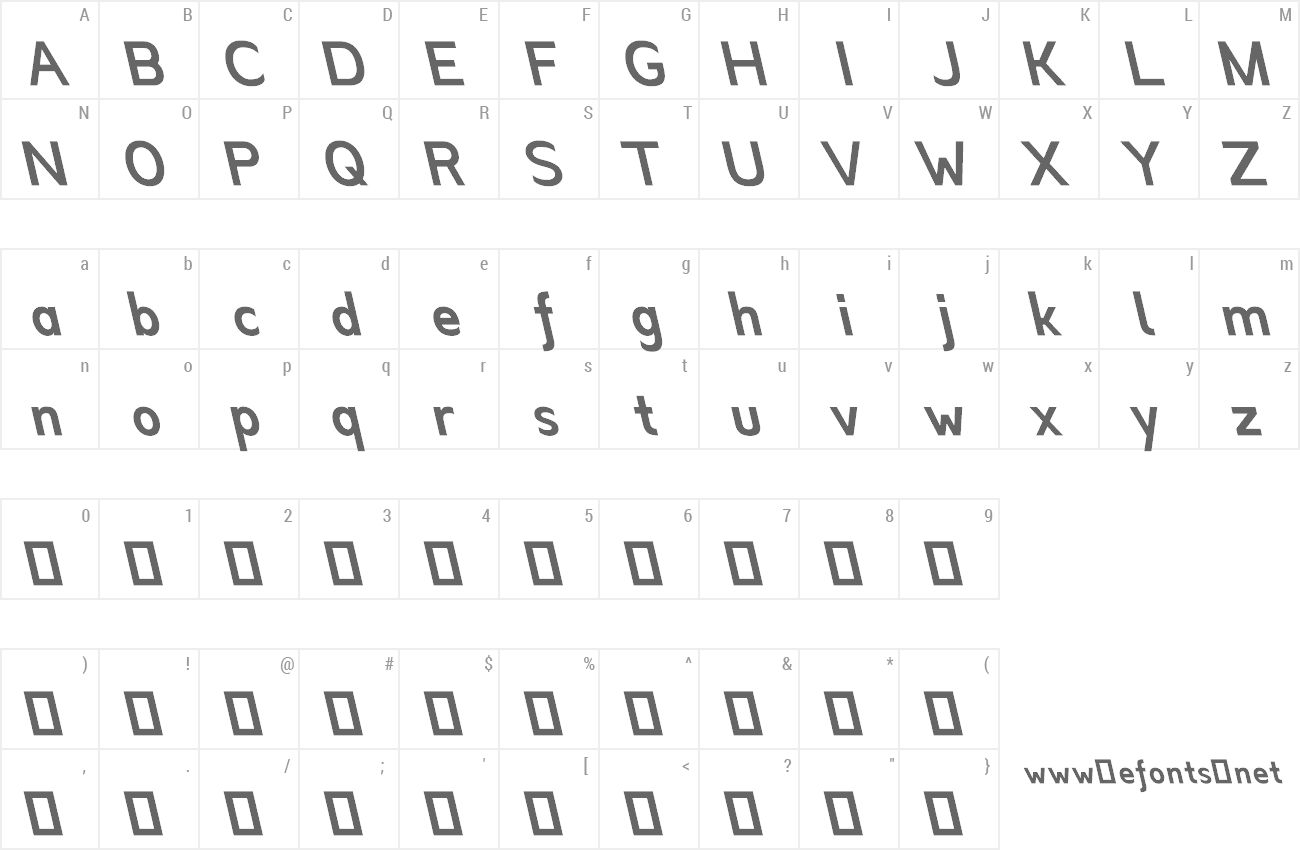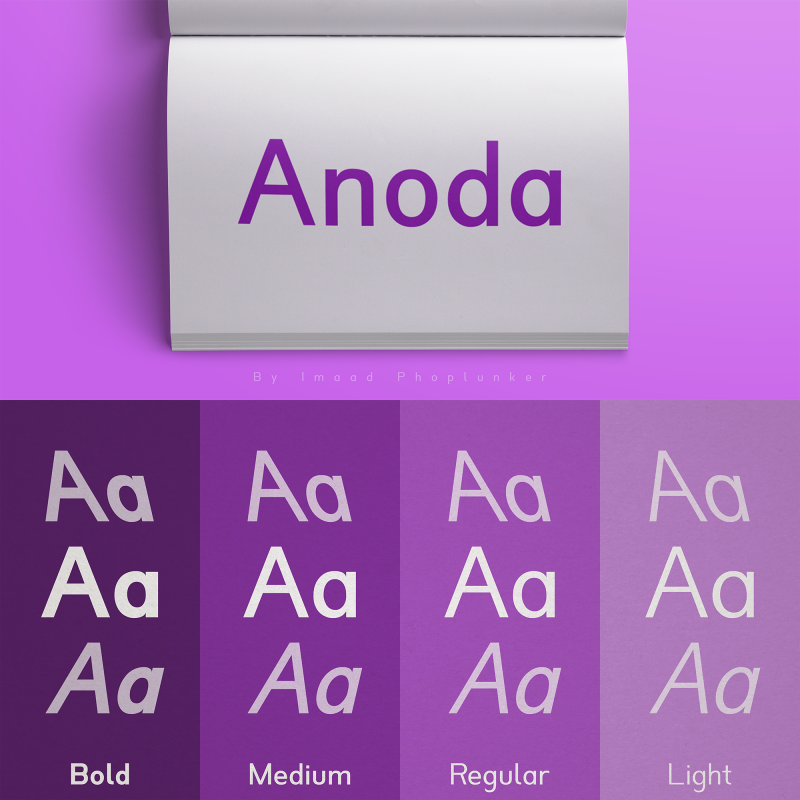
Preview and download Anoda Font. Created by Imaad Phoplunker in Basic Sans serif styles with Demo license.
| Font name: | Anoda |
| Author: | Imaad Phoplunker |
This work is licensed under Attribution-NonCommercial 4.0 International (CC BY-NC 4.0) Anoda is a humanist typeface that uses single-storey glyph designs for "a" and "g" characters for a cleaner, simpler look. It comes in 4 different weights, each with italic and backslant variants. Named after a genus of plants, Anoda takes inspiration from the simple yet beautiful flowers of its namesake, making for a versatile typeface that is suitable for headings, body text and more. With a character set of 370+ glyphs, Anoda fully supports over 90 languages. This font is a TRIAL version, and is for PERSONAL USE ONLY! To download a full version with a complete character set and acquire commercial licenses please visit: https://www.myfonts.com/collections/anoda-font-imaad-phoplunker By following that link, you can also find a FULL version of "Anoda Bold Italic" for FREE! For questions: iphoplunkerfont@outlook.com |